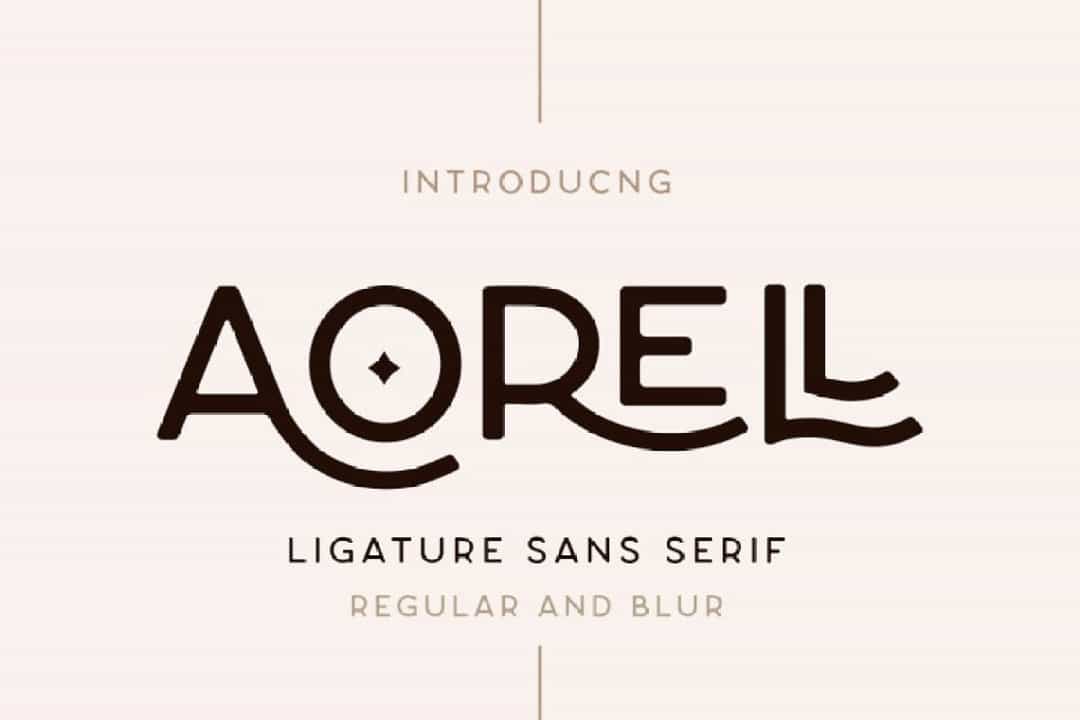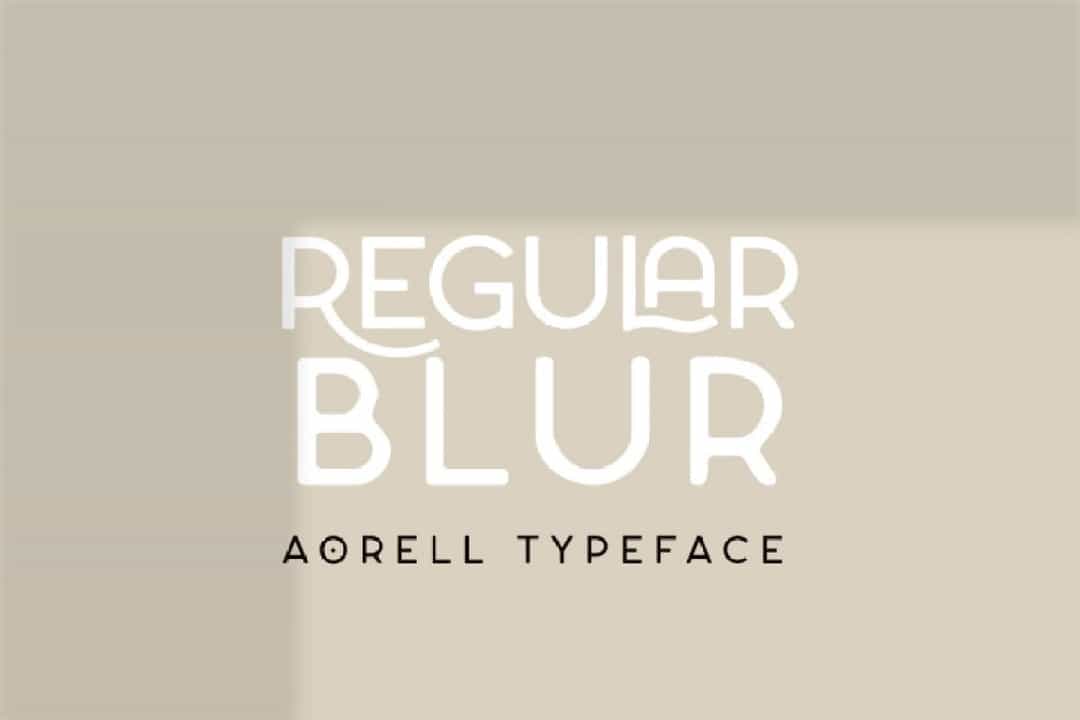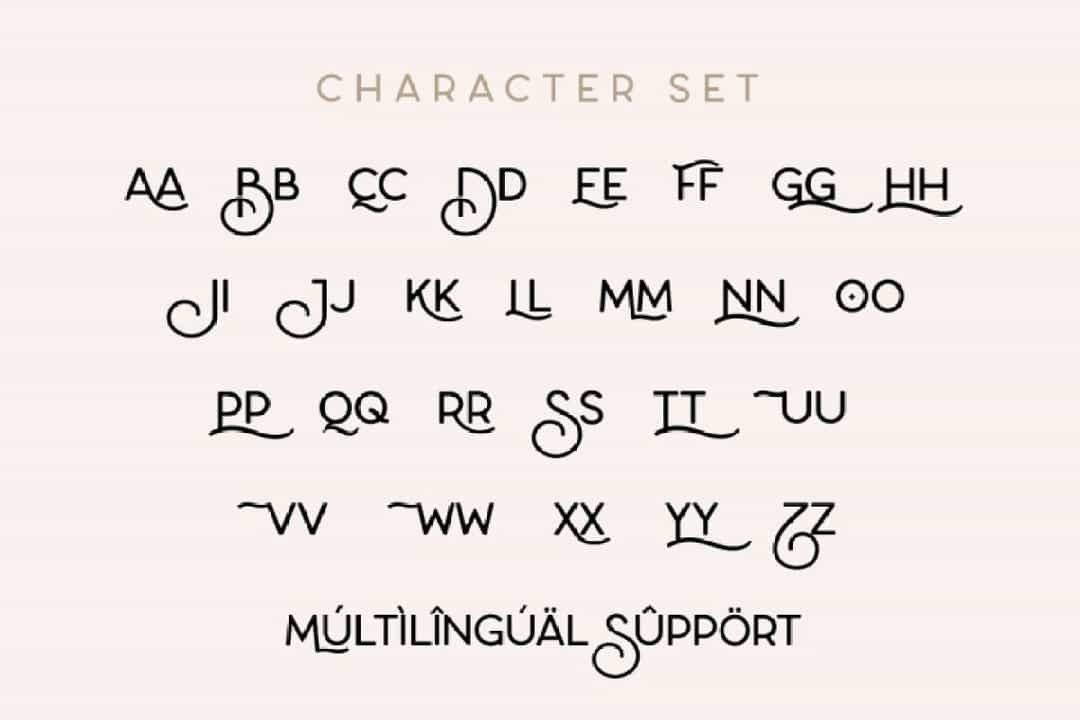
Discover Aorell Font, part of the Sans Serif collection—a versatile and unique font perfect for adding a personal touch to your projects. Download it for free and enjoy crafting designs with style, from invitations to social media posts. This font is available exclusively for personal use, giving you the freedom to create without limits. Unlock your creativity with Aorell Font today!
Aorell by Metafontsy is an exceptionally high-quality sans serif font available for free download, including both lowercase letters as well as special characters.